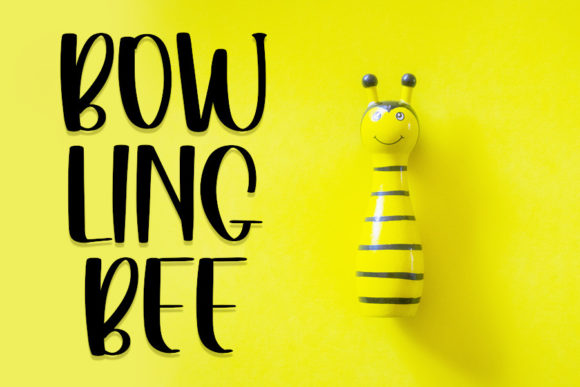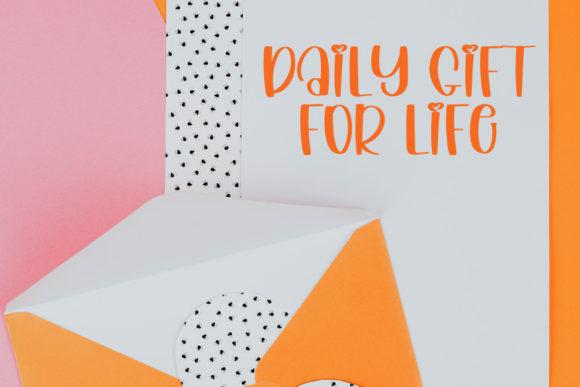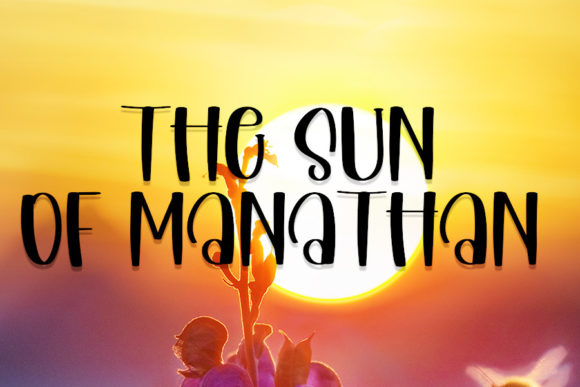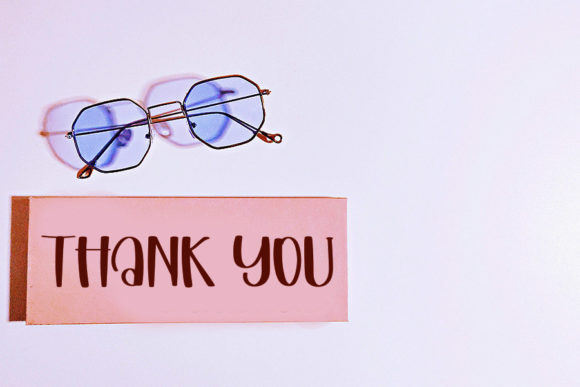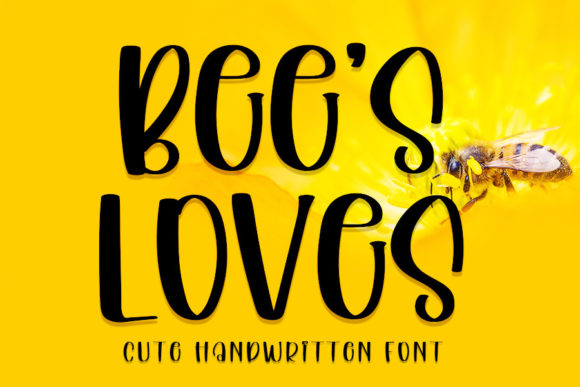
Bee’s Loves Font: The Quirky and Laid-Back Handwritten Font You Need
Are you tired of using the same old fonts in your designs? Do you want to add a touch of personality and whimsy to your creations? Look no further than Bee’s Loves Font, a quirky and laid-back handwritten font that’s perfect for designers and crafters alike. In this article, we’ll dive into the world of Bee’s Loves Font and explore its features, benefits, and uses.
What is Bee’s Loves Font?
Bee’s Loves Font is a unique and charming handwritten font that’s designed to add a personal touch to your designs. With its irregular lines and playful curves, this font is perfect for creating eye-catching headings, titles, and text that stands out from the crowd. Whether you’re working on a branding project, a craft tutorial, or a social media post, Bee’s Loves Font is a wonderful asset to have in your font library.
Features of Bee’s Loves Font
So, what makes Bee’s Loves Font so special? Here are just a few of its key features:
• Handwritten style: Bee’s Loves Font has a distinctly handwritten feel that’s perfect for creating personal and relatable designs.
• Quirky and laid-back: This font has a fun and carefree vibe that’s perfect for designers and crafters who want to add some personality to their work.
• Versatile: Bee’s Loves Font can be used for a wide range of projects, from branding and advertising to crafting and DIY tutorials.
• Easy to read: Despite its playful style, Bee’s Loves Font is surprisingly easy to read, making it perfect for use in body text as well as headings.
Benefits of Using Bee’s Loves Font
So, why should you choose Bee’s Loves Font for your next project? Here are just a few of the benefits of using this amazing font:
• Adds personality to your designs: Bee’s Loves Font is the perfect way to add some personality and whimsy to your designs, setting them apart from the crowd.
• Perfect for crafty and DIY projects: If you’re working on a craft or DIY project, Bee’s Loves Font is a great choice for adding a personal touch to your tutorials and instructions.
• Great for branding and advertising: Bee’s Loves Font can also be used to create eye-catching branding and advertising materials that stand out from the competition.
How to Use Bee’s Loves Font
So, how can you use Bee’s Loves Font in your designs? Here are a few ideas to get you started:
• Headings and titles: Use Bee’s Loves Font to create eye-catching headings and titles that add a personal touch to your designs.
• Body text: Bee’s Loves Font is also easy to read, making it perfect for use in body text as well as headings.
• Signs and posters: This font is perfect for creating eye-catching signs and posters that stand out from the crowd.
• Branding and packaging: Use Bee’s Loves Font to create unique and memorable branding and packaging materials that reflect your brand’s personality.
In conclusion, Bee’s Loves Font is a quirky and laid-back handwritten font that’s perfect for designers and crafters who want to add some personality to their designs. With its irregular lines and playful curves, this font is sure to enhance any creation and add a touch of whimsy to your work. Whether you’re working on a branding project, a craft tutorial, or a social media post, Bee’s Loves Font is a wonderful asset to have in your font library.